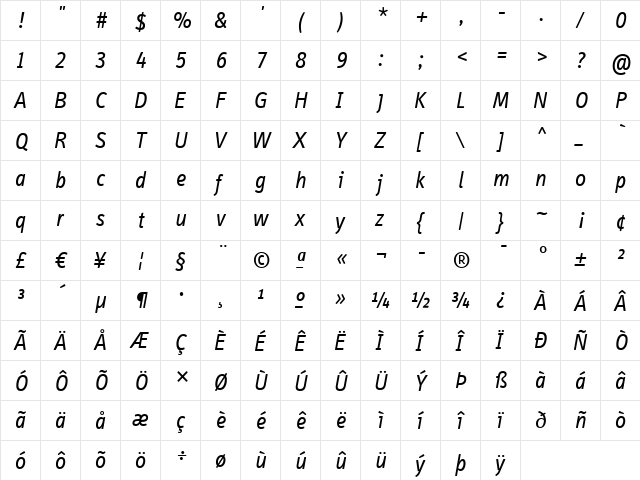
Info Web-Italic Regular
| Designer | Ole Schaefer, Erik Spiekermann |
Design Context for Info Web-Italic Typeface
Info Web-Italic is a composed and adaptable typeface that performs quietly and consistently across a wide range of design contexts. The dynamic lean of this cut emphasises speed and emphasis in any layout.
Pro Tip: Use Info Web-Italic for emphasis, pull quotes, and subheadings where its slanted energy can add rhythm to the layout.